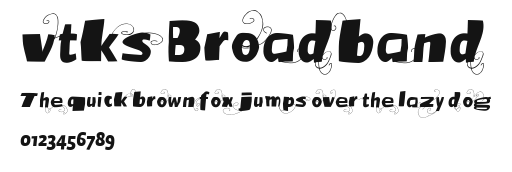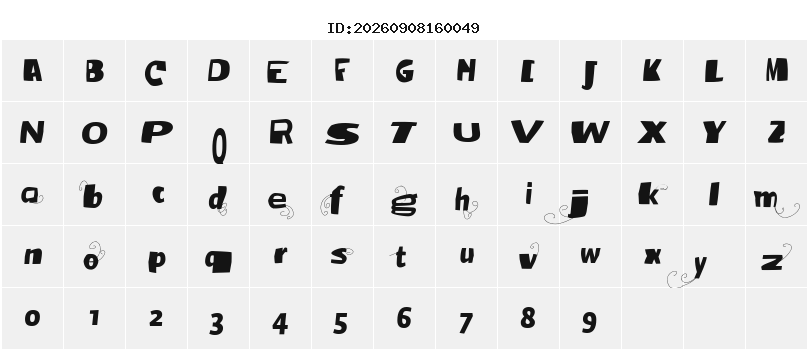
• Font Name: vtks Broadband
• Font ID: Underware: Auto 1 Black Italic: 2004
• Full Font Name: vtks Broadband
• Designer: douglas vitkauskas
• Manufacturer: douglas vitkauskas
About vtks Broadband.ttf
vtks Broadband.ttf is a modern, elegant sans-serif font designed for ultimate readability and visual harmony. Perfect for branding, headlines, web design, and print materials.